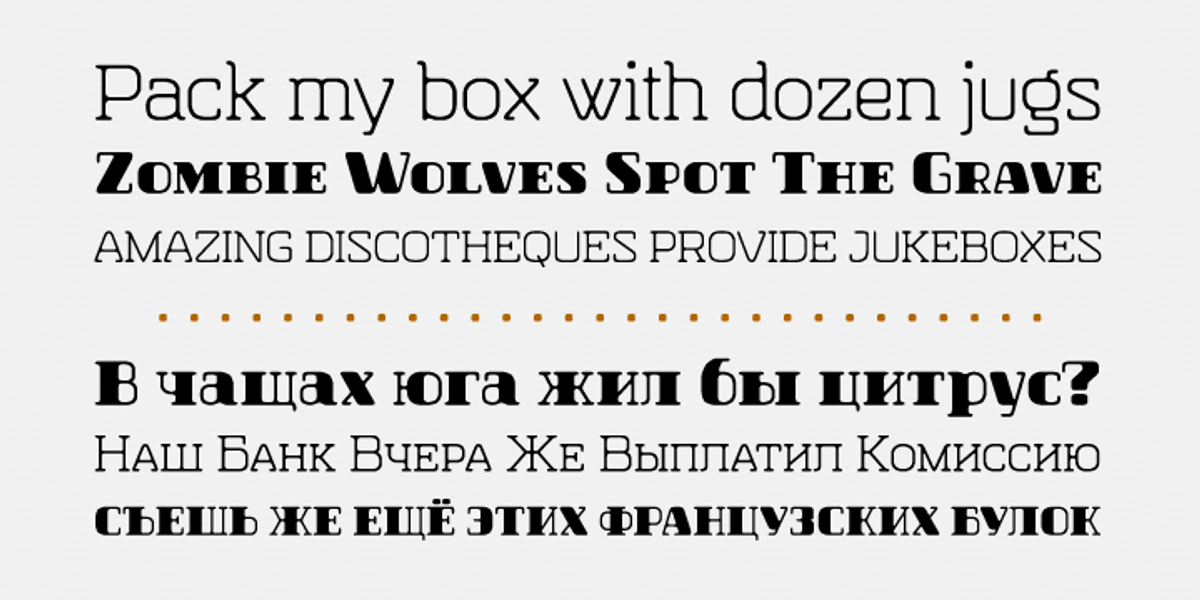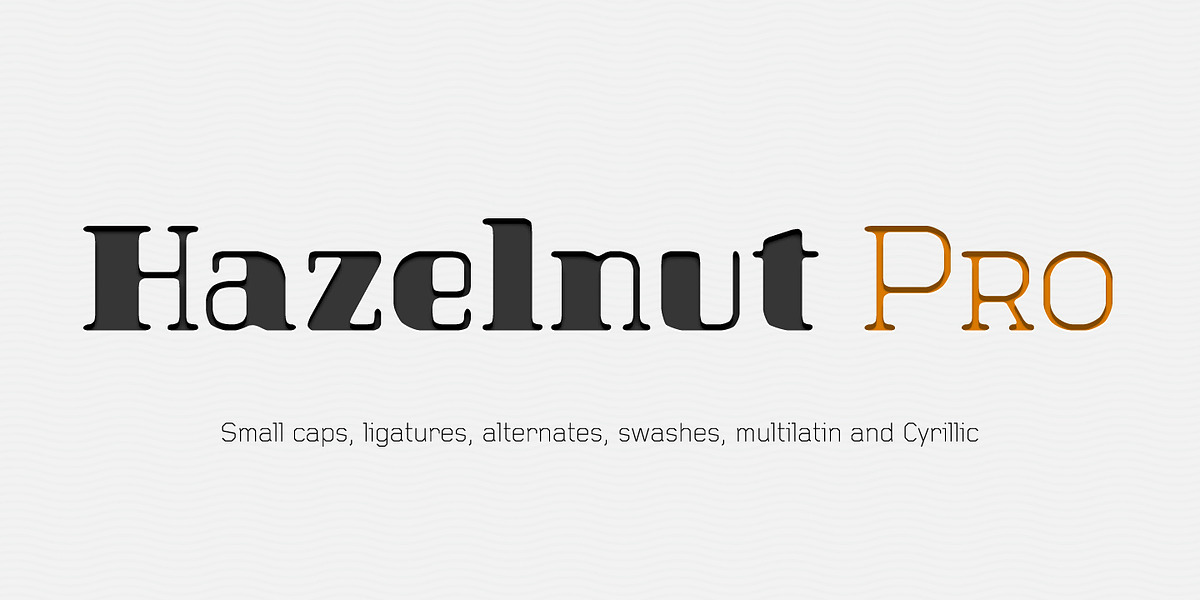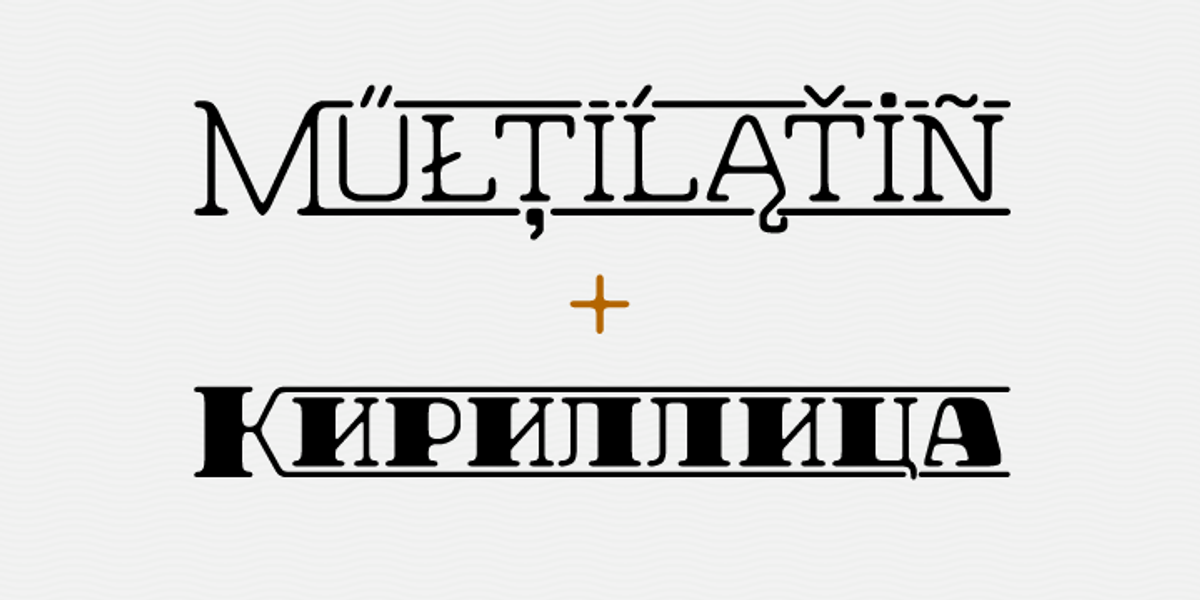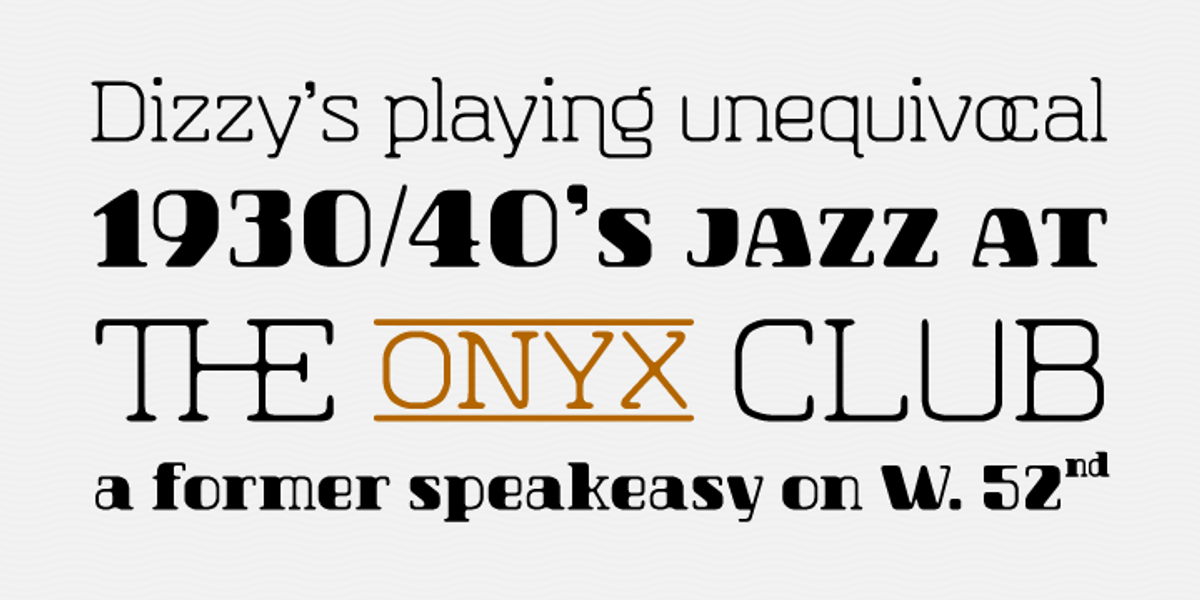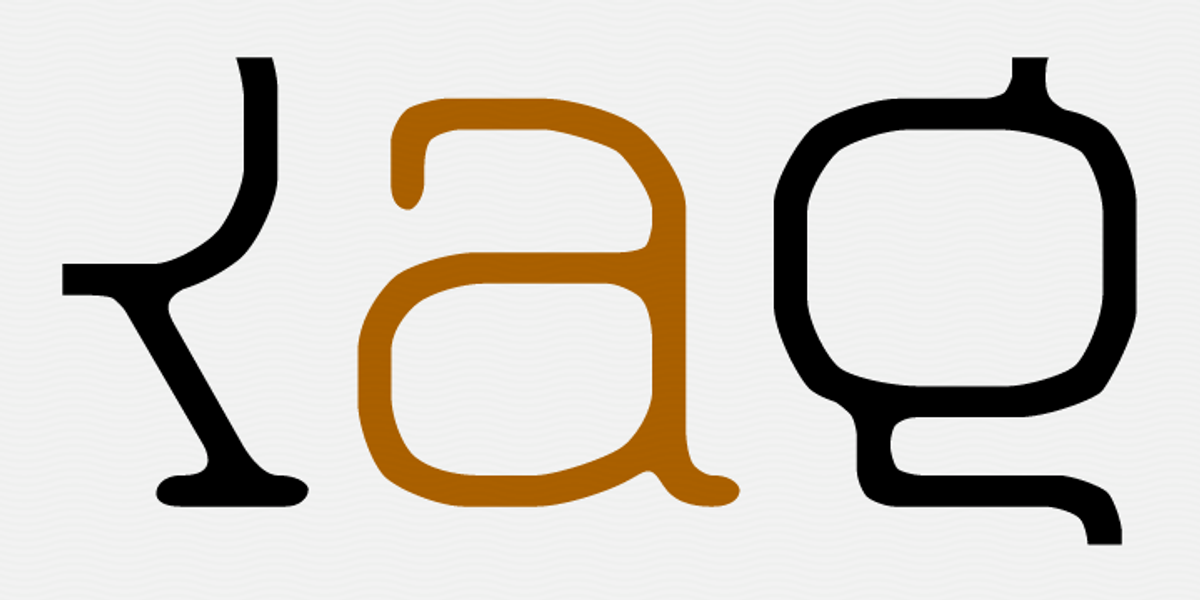
Hazelnut Pro
Hazelnut is a square slab serif font designed to evoke the appearance of wood type printing. Although its glyphs have a modular feel, each one was individually crafted to include subtle imperfections that mimic the handmade nature of traditional printing methods. This attention to detail makes Hazelnut particularly well-suited for larger sizes where these nuances can be appreciated.